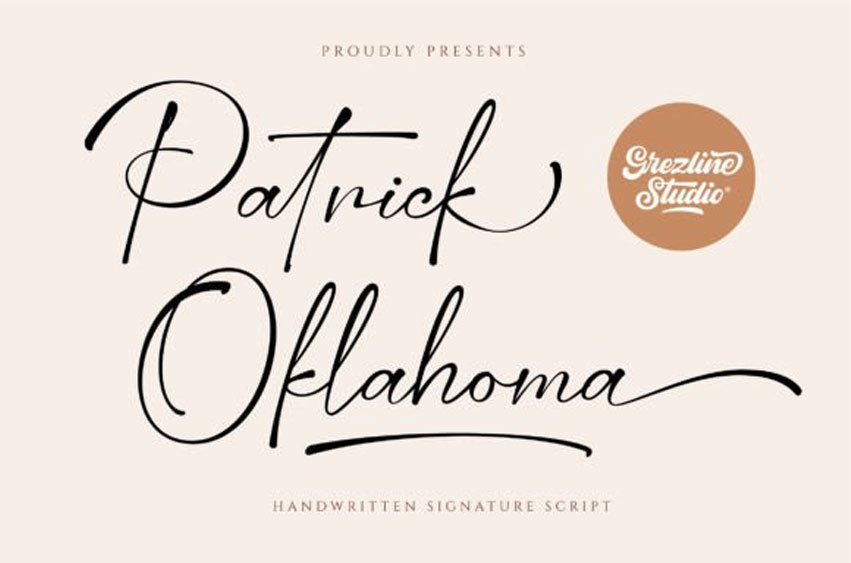
Patrick Oklahoma Font is a dazzling script font. This font is neatly crafted and highly detailed.
Whatever the topic, this font will be a wonderful asset to your font library, as it has the potential to enhance any creation.